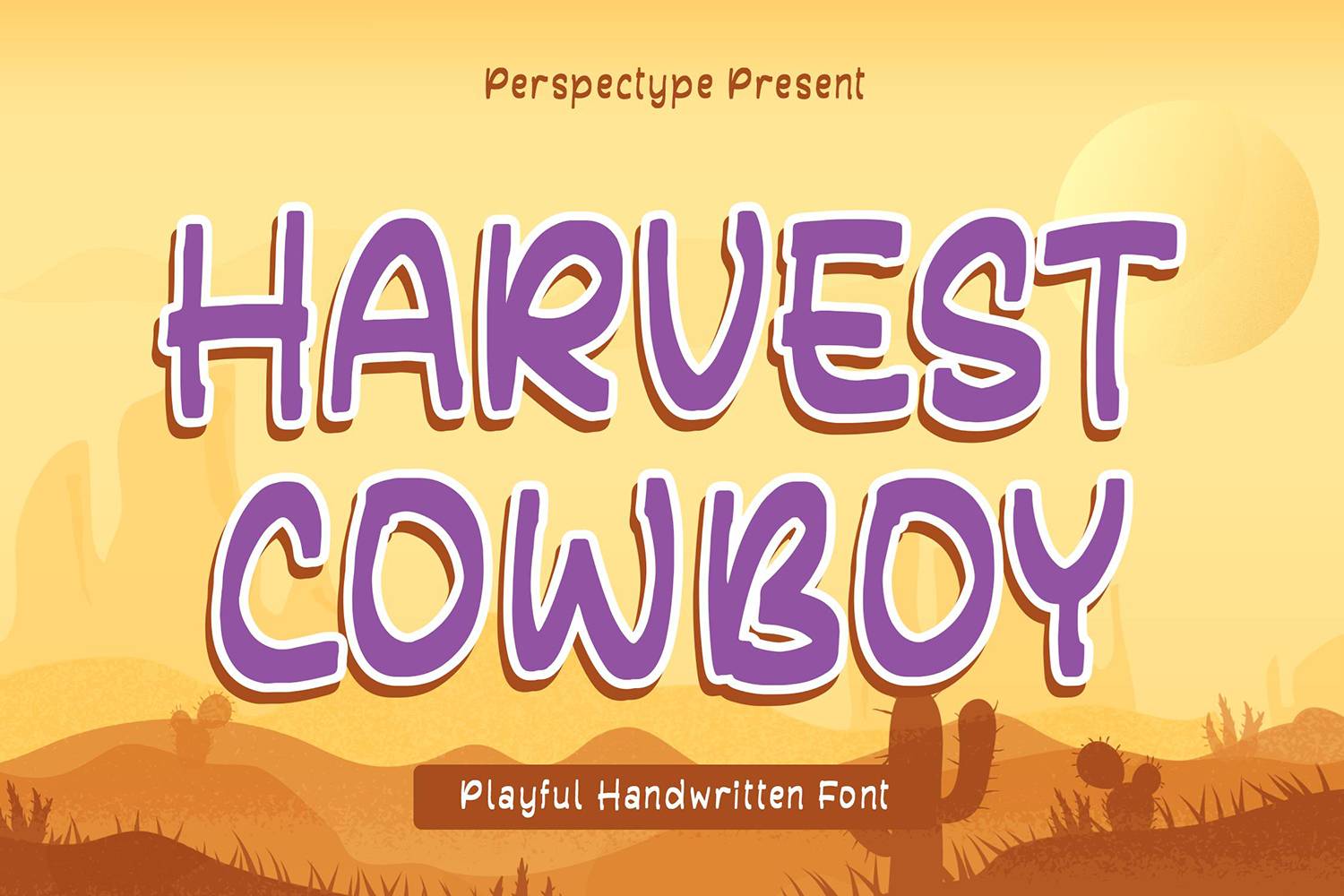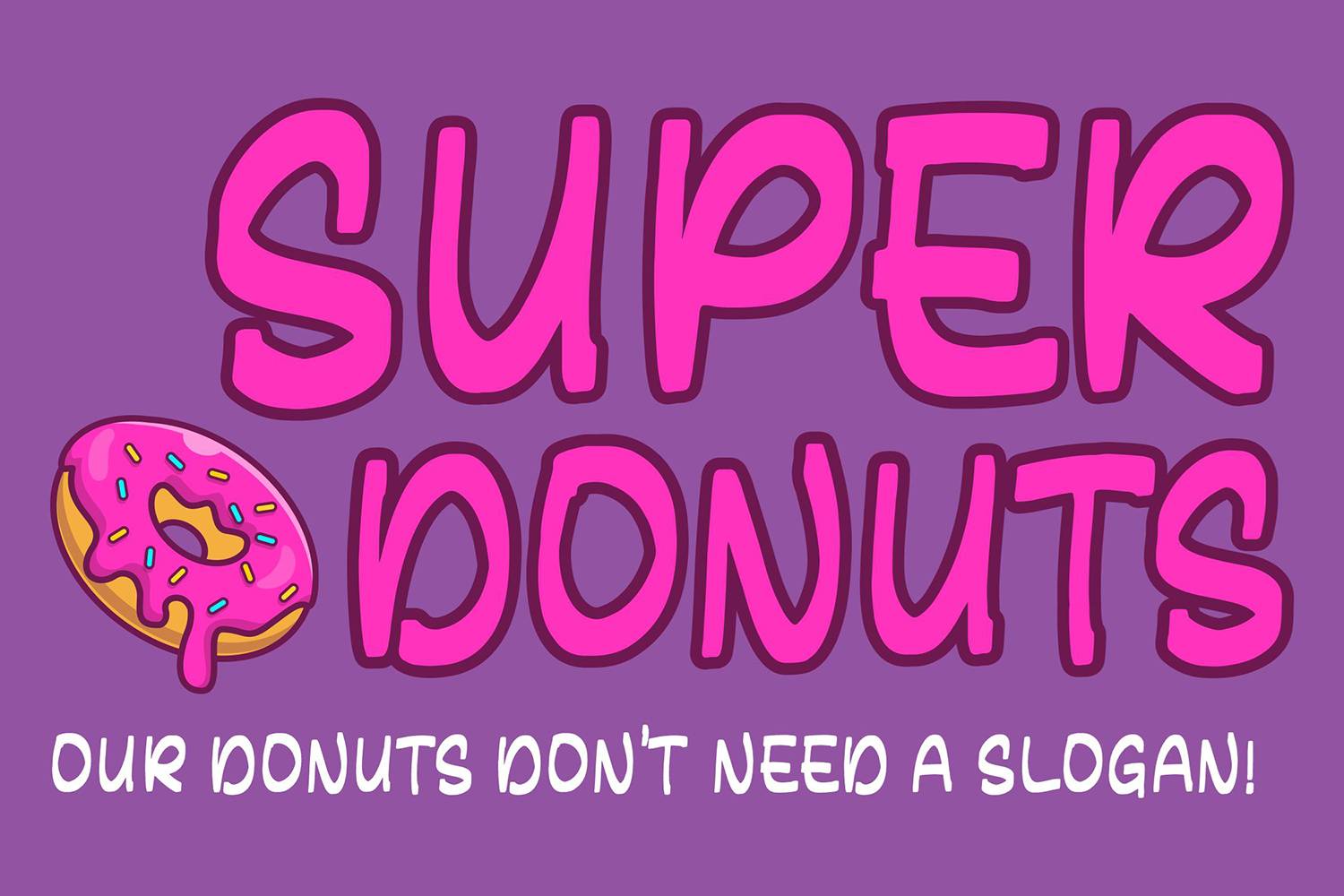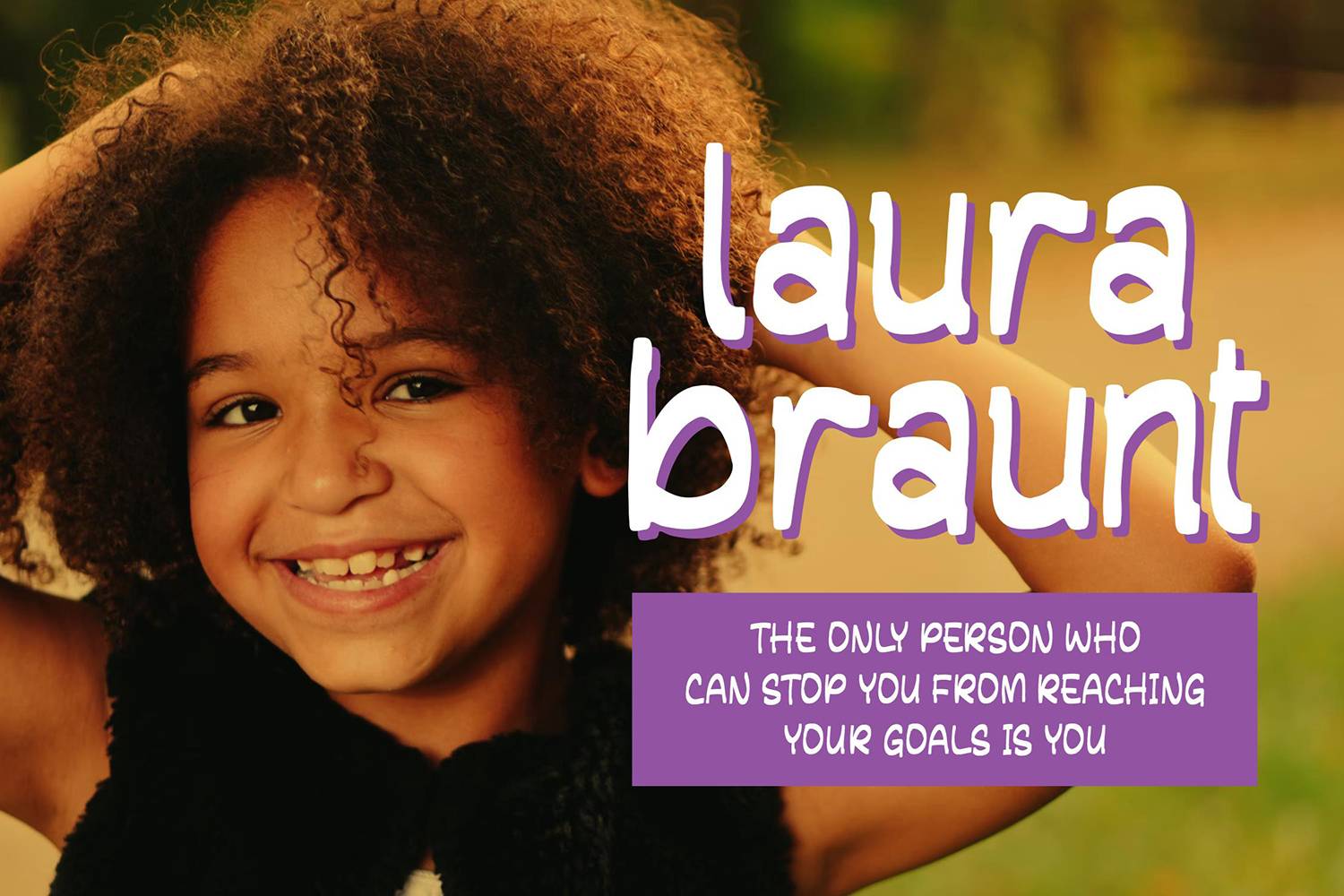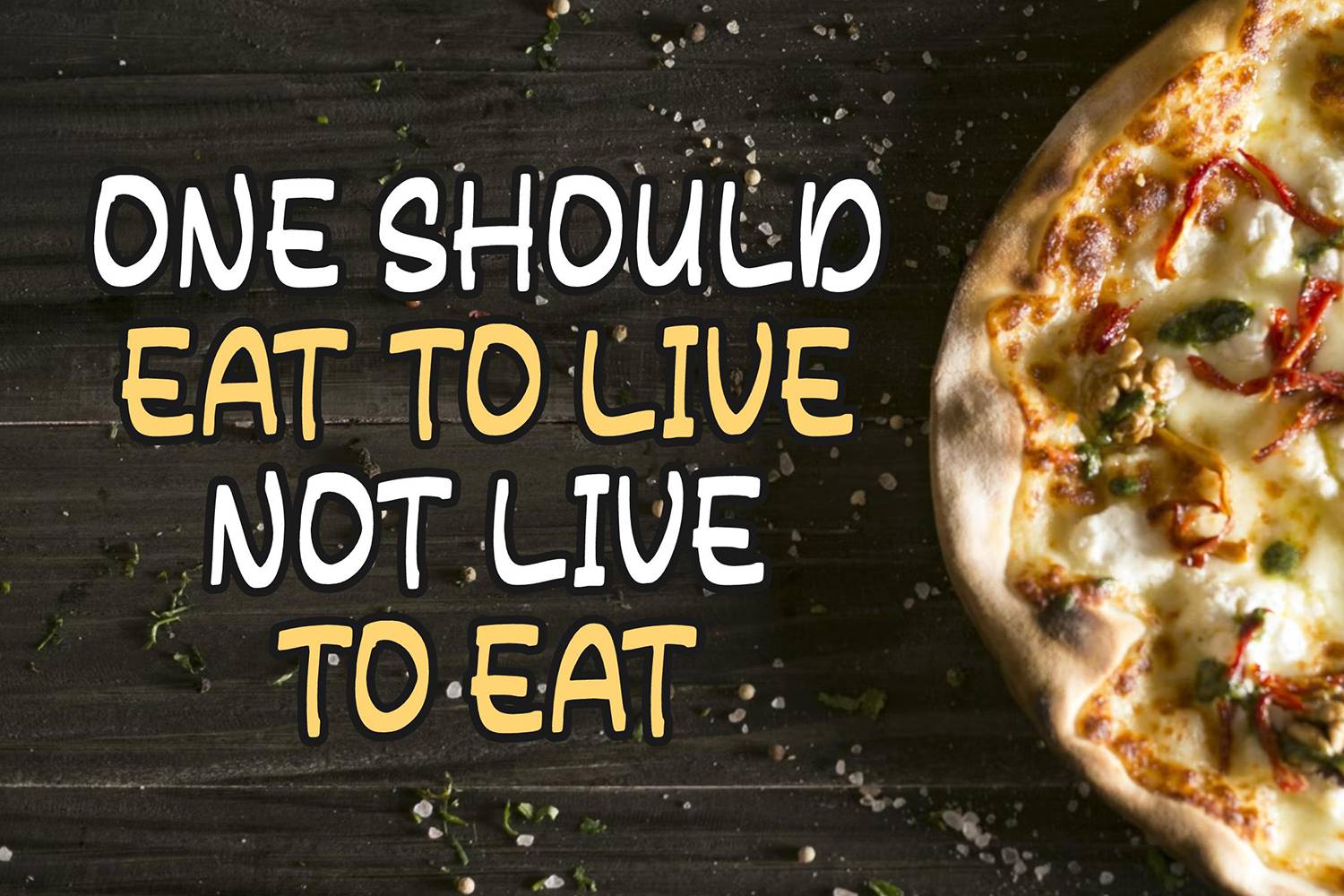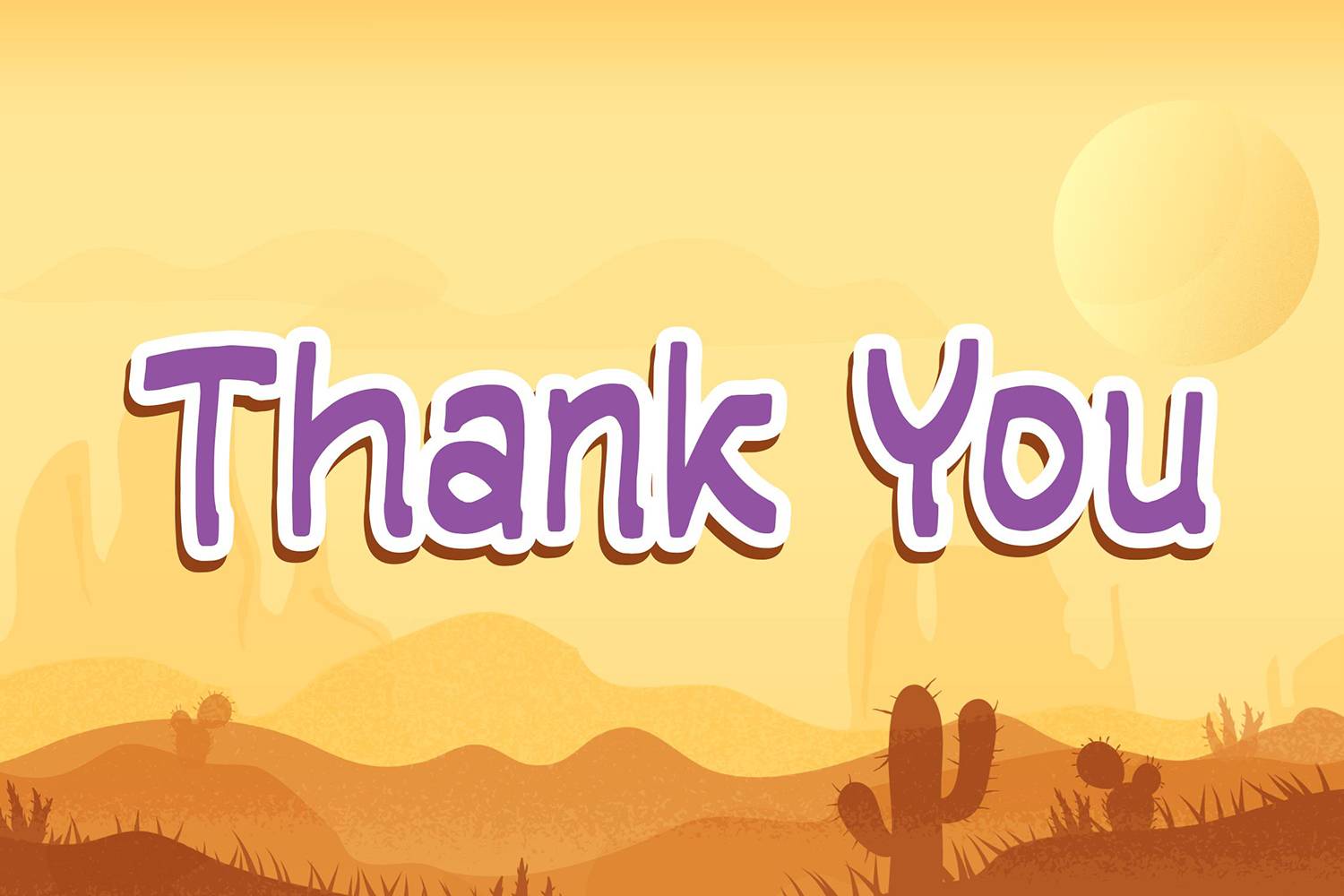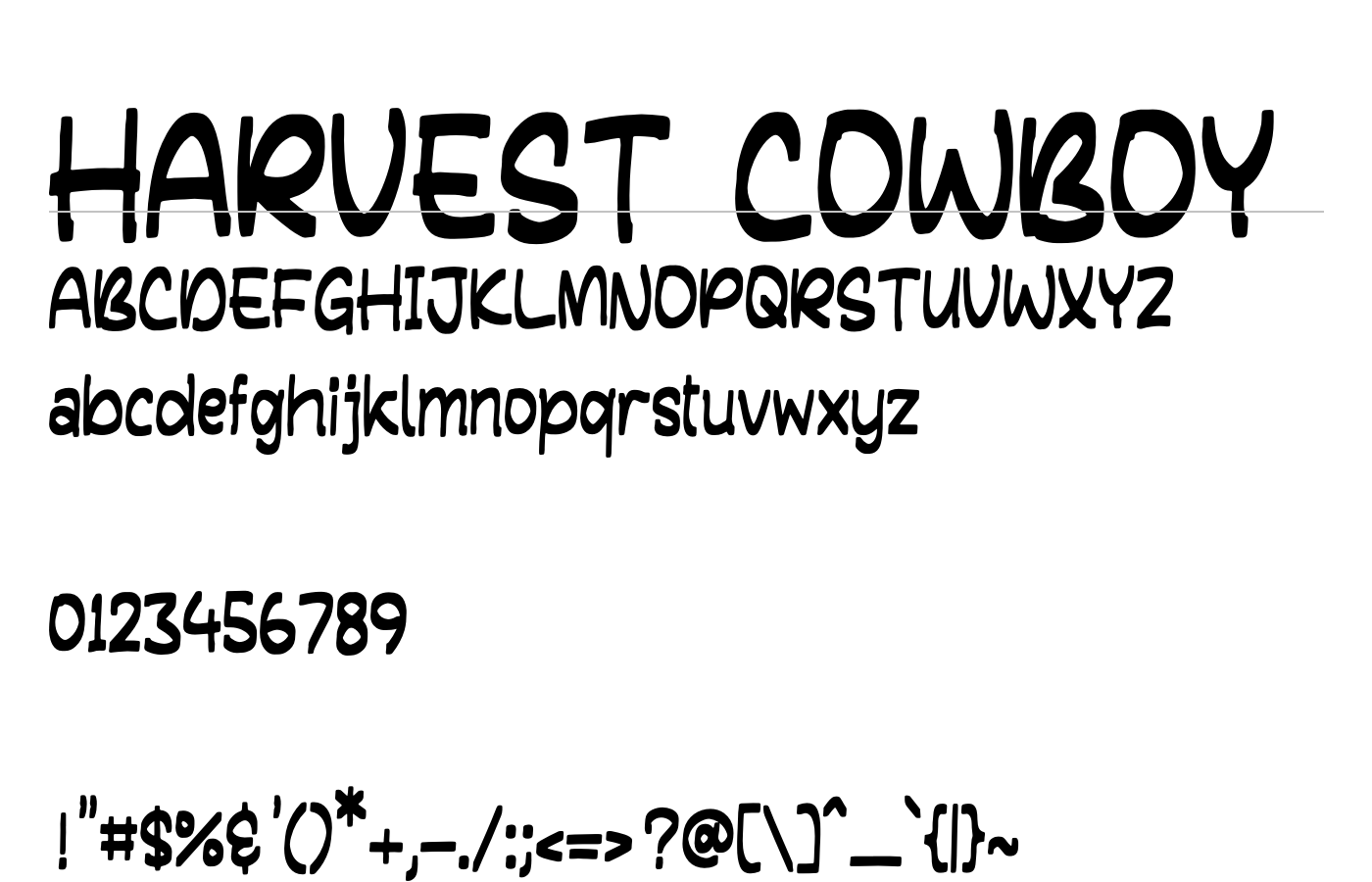
Harvest Cowboy is a playful, hand-drawn sans serif font with a casual, uneven stroke style that gives it a friendly and approachable character. Its regular weight and moderate contrast make it easy to read, while the quirky, slightly irregular letterforms add charm and personality, ideal for fun, informal designs. This font works well for branding, posters, and any project seeking a warm, rustic, or whimsical vibe.
Harvest Cowboy Font
About Harvest Cowboy Font